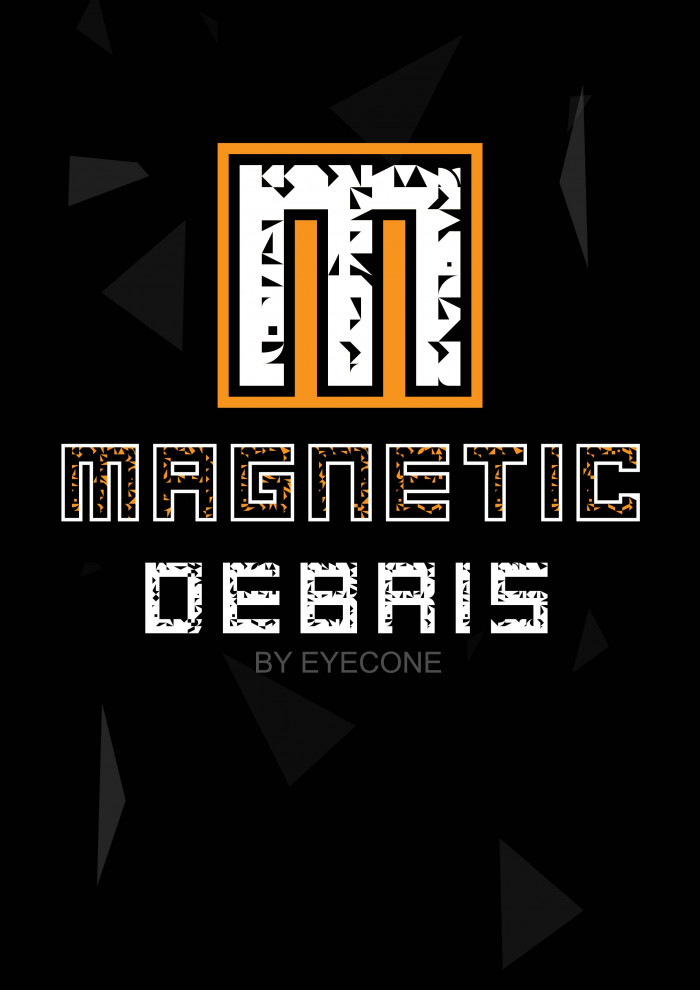
Nice one! I found a way to improve the outline of the asterisk... (see sample)
I like this a lot. I'm not sure whether I'd use the upper and lower case together though. Could it be two fonts?
Yes @Rob  actually im making 3 versions of it with real lower case.
1st the regular one (no outlines)
2nd the existing with outlines
3rd  with outlines but rounded.